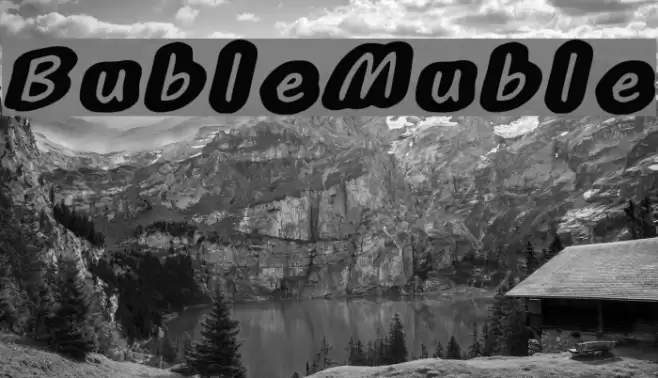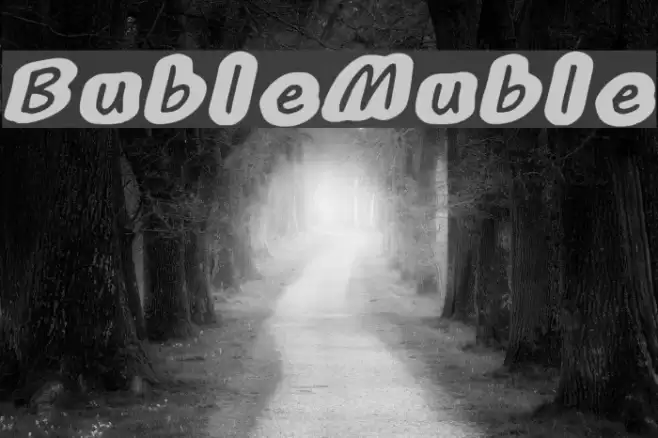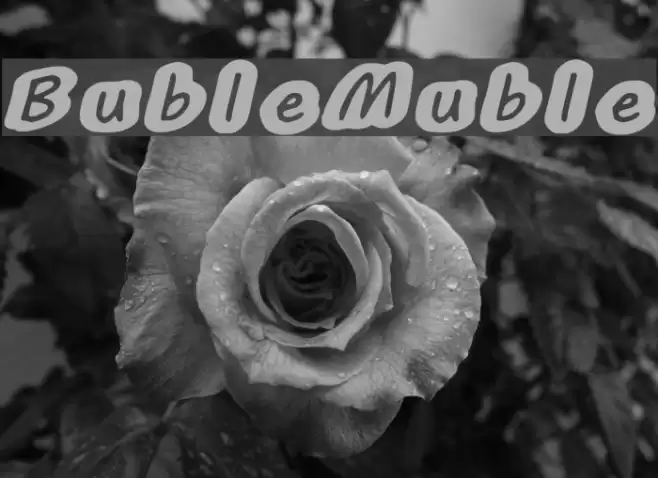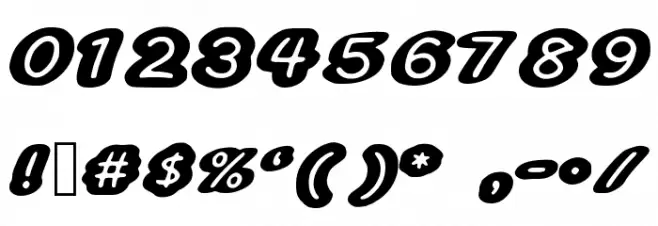
BubleMuble Font
BubleMuble Description
This playful and bold font features a bubble-like appearance with thick, rounded edges and a strong presence. Each character is enveloped in a black outline, enhancing its visibility and giving it a three-dimensional effect. The letters are slightly slanted, adding a dynamic and informal touch. The font maintains consistent thickness across all characters, providing a uniform look. Its whimsical style makes it ideal for projects that require a fun and engaging aesthetic, such as children's books, playful branding, or eye-catching headlines.
A bold, bubble-style font with rounded edges and a playful, dynamic appearance from Uncategorized fonts.
- Proposed Projects: Ideal for children's books, playful branding, eye-catching headlines, and fun event invitations.
- Overall Style: Playful